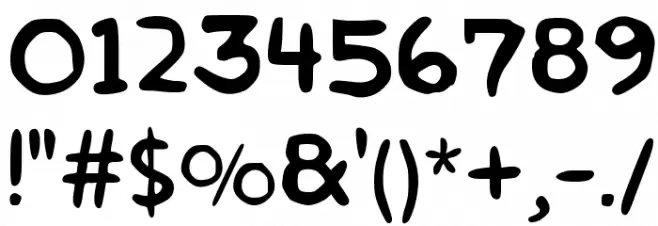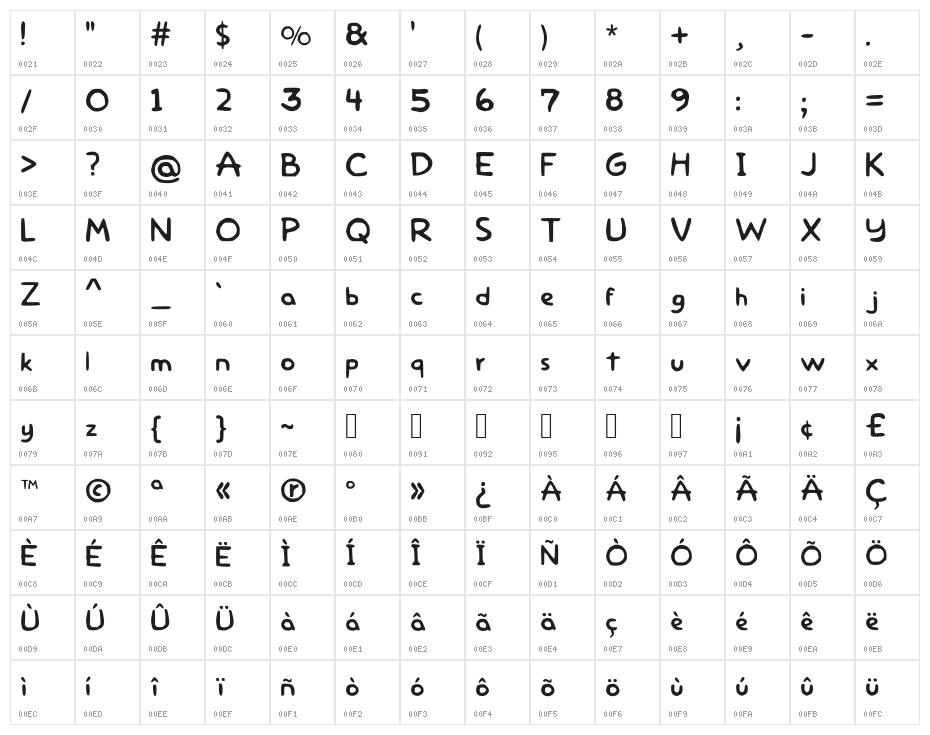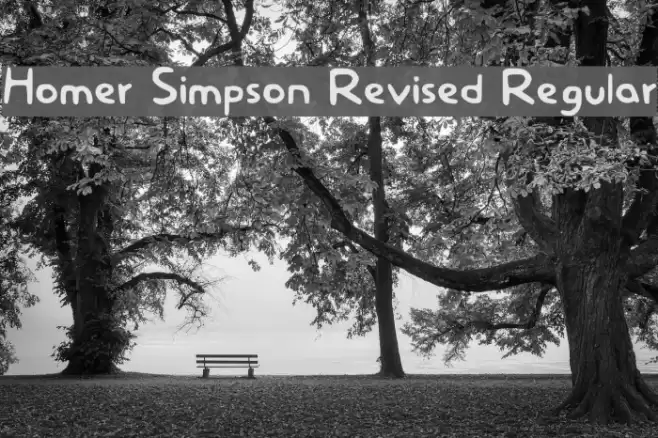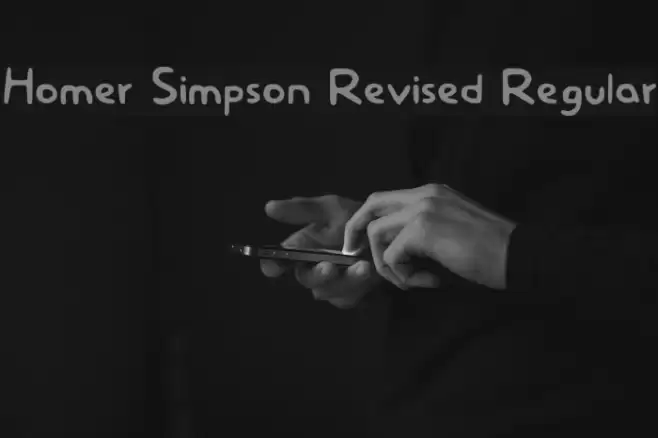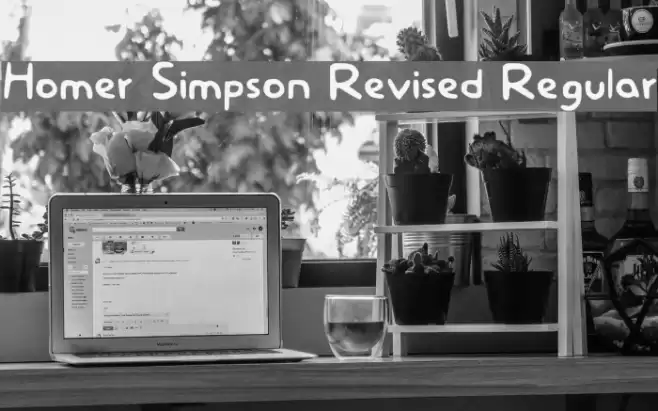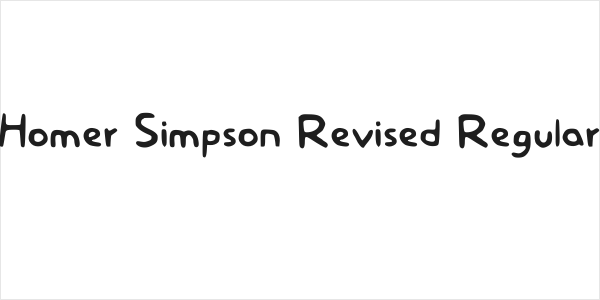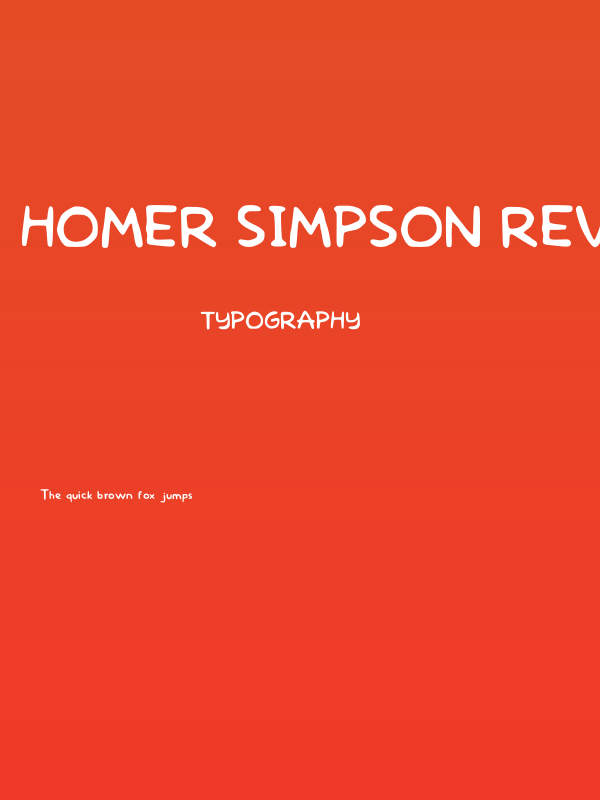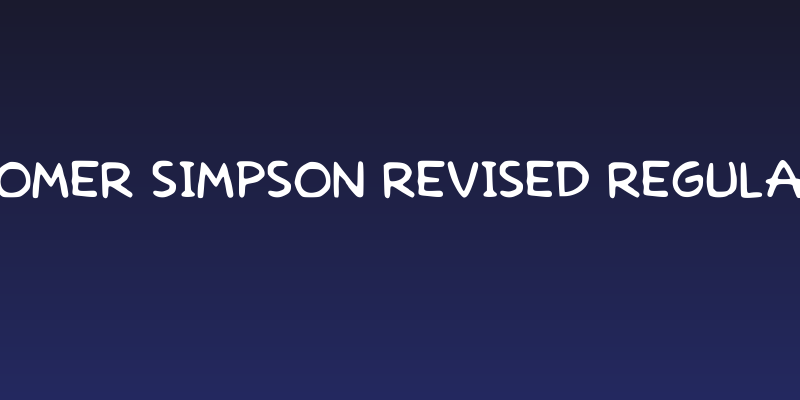
Homer Simpson Revised Regular Font
Homer Simpson Revised Regular Description
This playful and whimsical font features a hand-drawn style with rounded edges and a casual appearance. The letters have an uneven, organic flow, giving them a friendly and approachable feel. The uppercase and lowercase letters maintain a consistent style, with slightly exaggerated curves and a bold presence. Numbers and special characters are designed to match the overall aesthetic, ensuring a cohesive look across all text. The font's informal and fun nature makes it ideal for projects that require a touch of humor or creativity.
Overall StylePlayful
Use CaseHeadlines, Logos, Informal Text
Proposed ProjectsIdeal for children's books, comic strips, playful branding, and informal invitations.